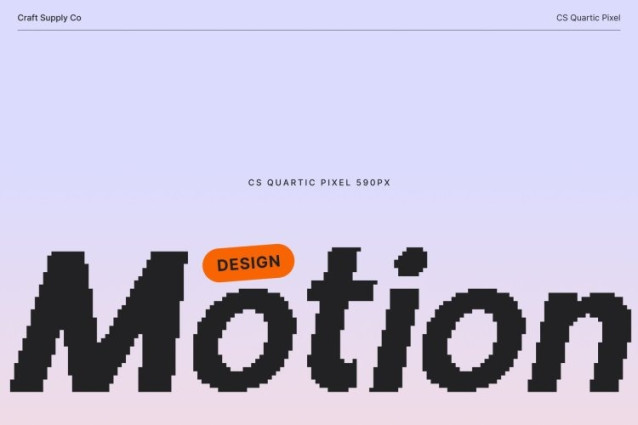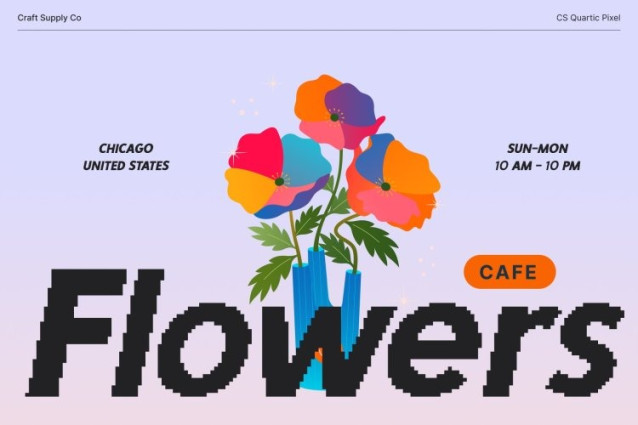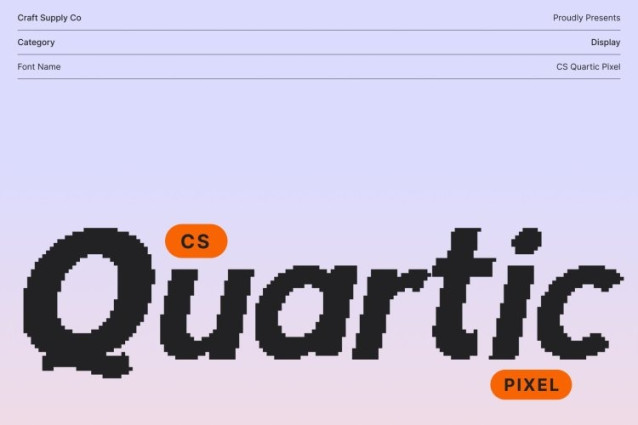
CS Quartic Pixel Font
CS Quartic Pixel Font This is a bold modern sans serif font built on strong pixel-based geometry. Its solid structure and clean construction deliver instant clarity and visual force, making every character feel confident, stable, and highly impactful.
Modern Structure with Lively, Unconventional Details
While rooted in contemporary sans serif design, introduces subtle irregularities and playful proportions that break away from strict uniformity. These unconventional nuances inject energy and personality into the font without sacrificing readability, giving it a distinctive and forward-thinking edge.
Designed for Headlines, Posters, and High-Impact Branding
This font excels in display-driven applications where bold presence matters most. From striking headlines and posters to event visuals, social media graphics, and branding systems, this font commands attention and holds it across both digital and print formats.
For Designers Who Want Boldness with Character
This is made for creatives who aren’t afraid to stand out. Its strong sans serif foundation anchors layouts with authority, while its expressive pixel details add movement and attitude. The result is a typeface that delivers messages with confidence, originality, and unmistakable modern style.